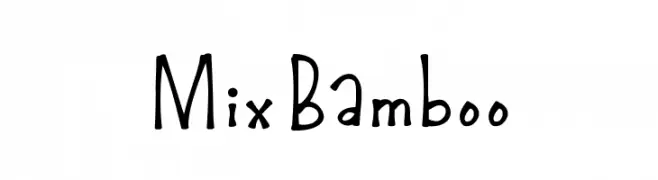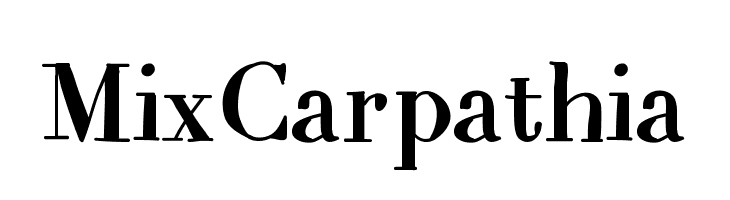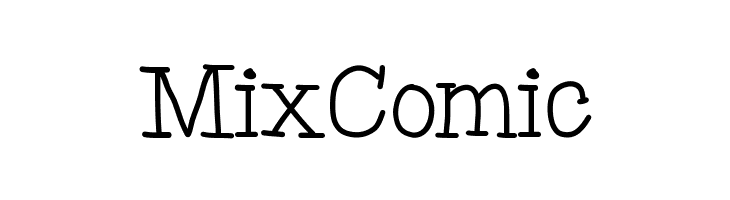
A playful, hand-drawn font with tall, narrow characters and a whimsical style.
A decorative and eclectic font with playful, artistic elements and diverse character styles.
A playful, hand-drawn font with a whimsical and quirky style.
A bold, geometric font with angular shapes and a strong, industrial aesthetic.
A bold, geometric italic font with a modern and dynamic style.
A bold, textured font with a rugged, handcrafted appearance.
A bold, rough, and italicized font with a dynamic and rugged appearance.
A bold, rounded font with a modern geometric style.
A bold, rounded, and italic font with a modern, dynamic style.
A bold, distressed font with a vintage, stamped appearance.